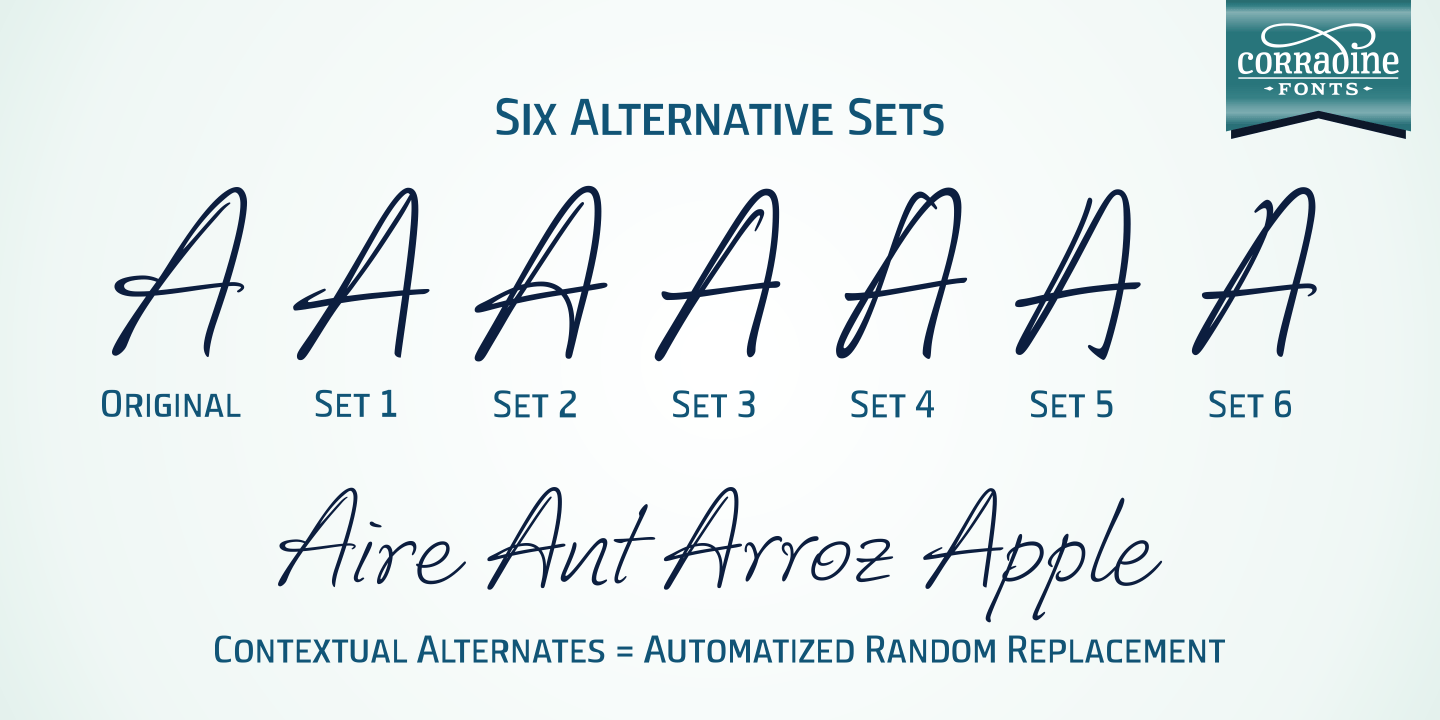
About Corradine Handwriting Italic
Few fonts reach the goal of simulate properly the hand writing aspect. Based on the hand writing of Manuel Corradine, Corradine Handwriting fonts have a lot of automatized alternates and ligatures that give them a natural hand writing feeling. Initially…